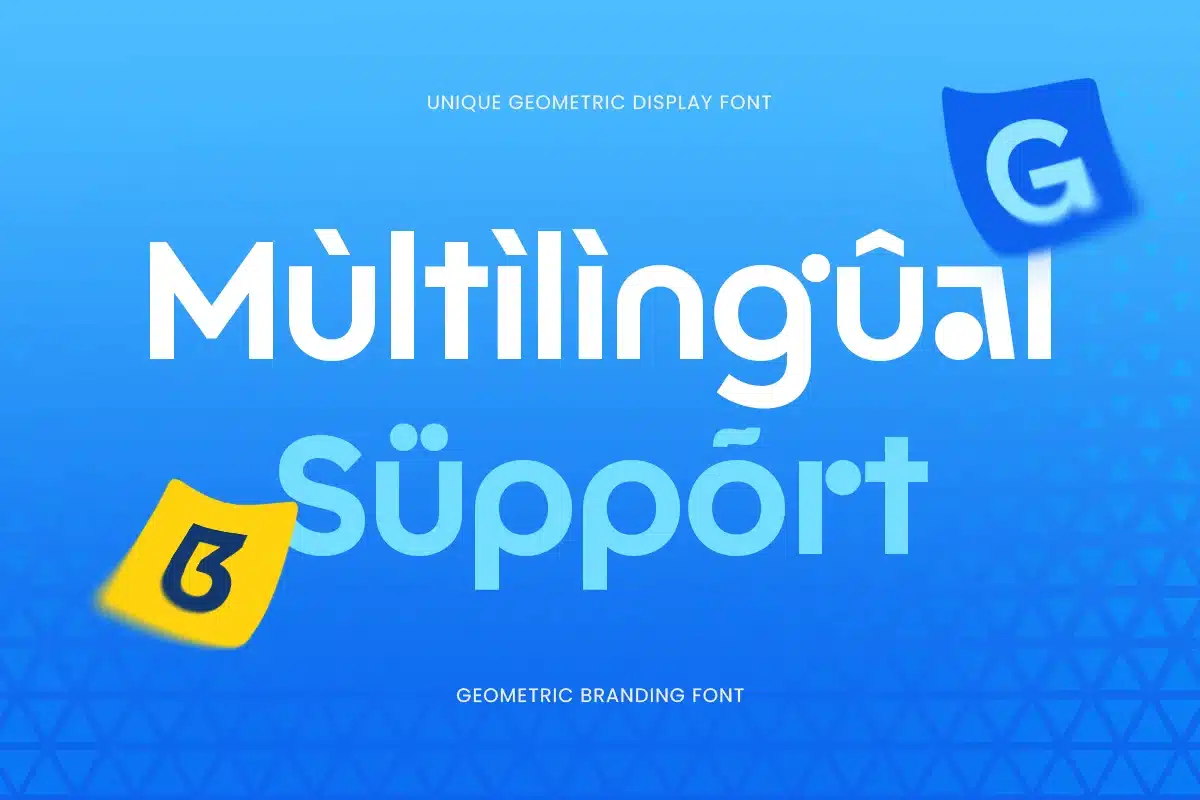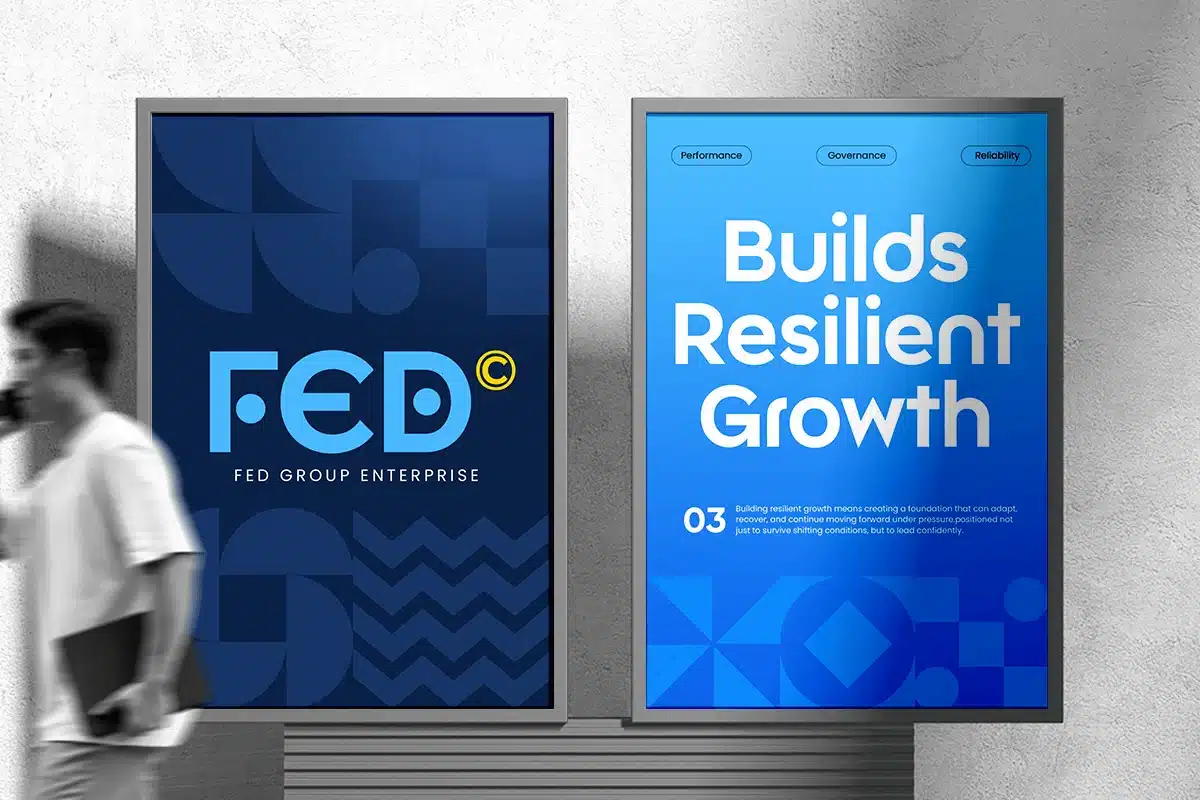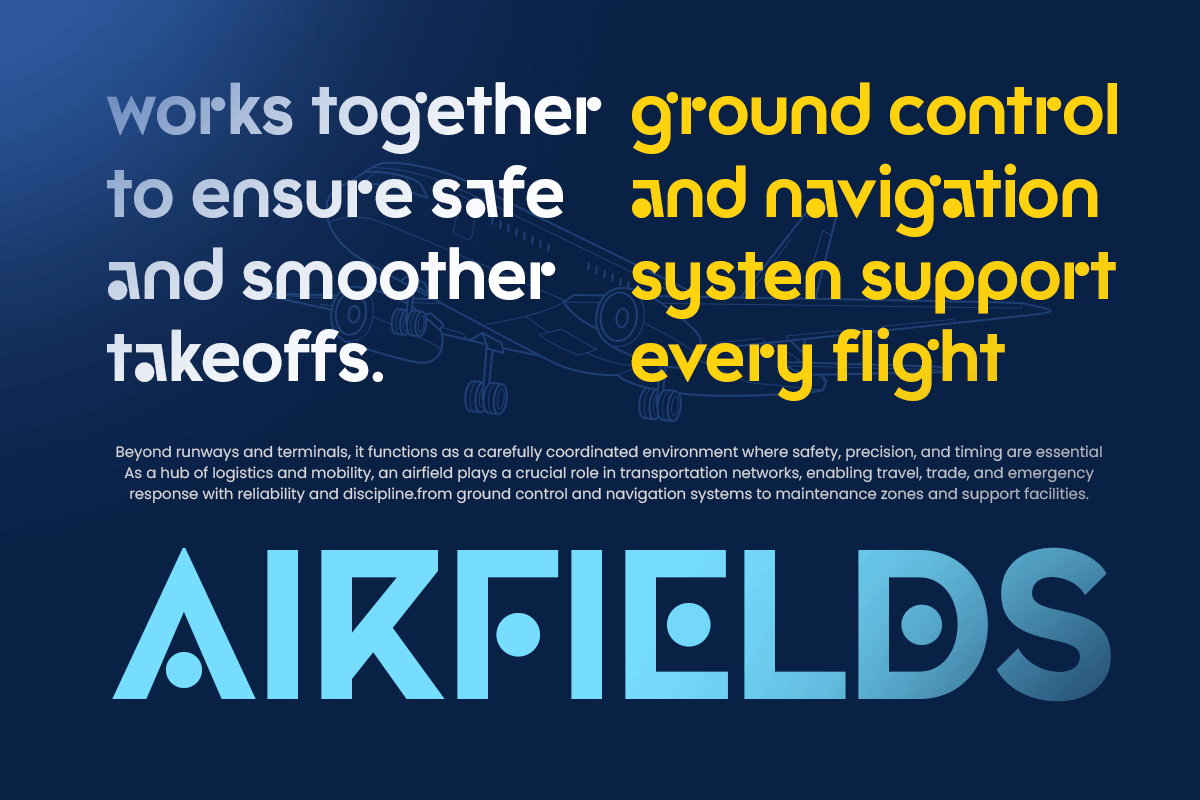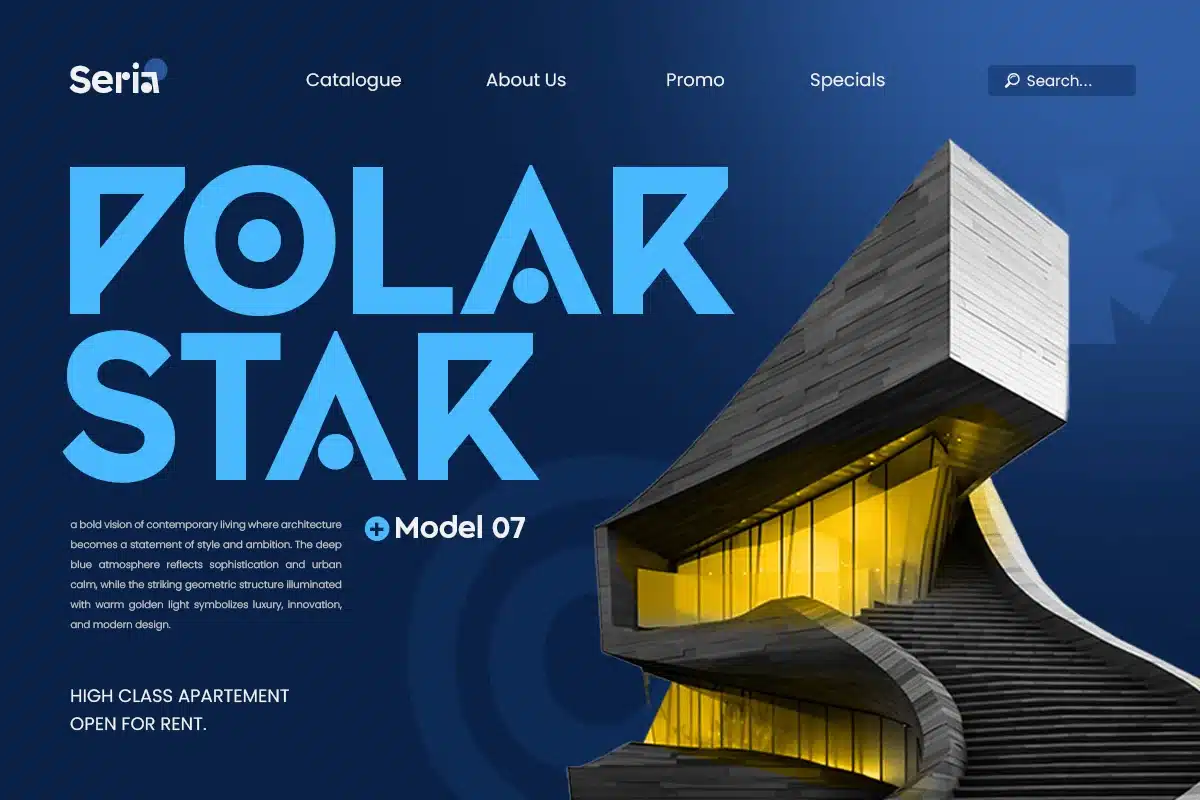
Geometrix Branding – Unique Geometric Logo Font
Geometrix Branding – Unique Geometric Logo Font is a modern display typeface crafted to deliver clarity, balance, and distinctive visual identity through geometric construction. Inspired by clean shapes and contemporary branding systems, this font is designed for projects that require a modern and structured typographic approach.
With its precise geometry, consistent proportions, and unique letter detailing, Geometrix Branding creates a refined and professional look while maintaining strong visual character. The design ensures versatility across logo creation and headline compositions, making it a reliable choice for modern branding.
Geometrix Branding Font Features
- Complete character set including uppercase, lowercase, numerals, symbols, and punctuation
- Geometric letterforms designed for clean and structured branding
- OpenType features included to support modern typography and branding needs
Geometrix Branding is Perfect For
- Modern logo and brand identity design
- Clean and minimal branding systems
- Startup and business visual identities
- Website headers and digital interfaces
- Marketing materials and presentations
- Contemporary design projects requiring geometric precision
Whether you are building a modern brand identity, designing a clean geometric logo, or creating a structured visual system, Geometrix Branding provides clarity, balance, and a distinctive modern aesthetic.